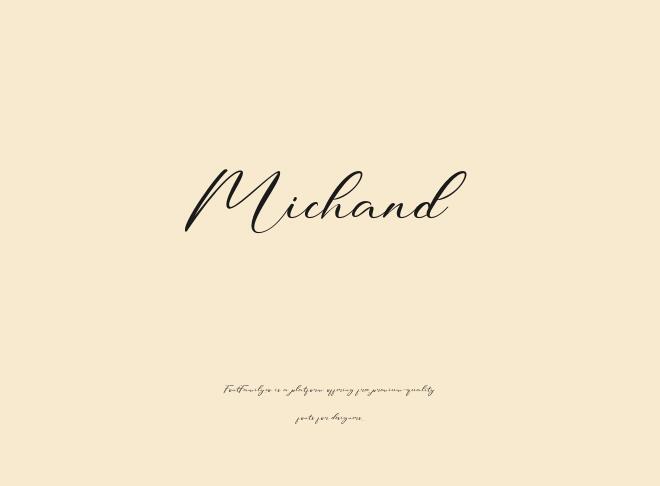
Michand Font
Michand Font is a sophisticated and modern script typeface, with a handwritten touch that adds a layer of elegance to any design. This versatile font, designed by Michand Foundry, is perfect for a broad range of applications - from wedding invitations and business cards to social media graphics and website design. Its delicate balance of modern and classic elements makes it comparable to popular fonts like 'Great Vibes' and 'Allura', yet its unique flair sets it apart. With its flowing lines and organic shapes, Michand Font is sure to captivate your audience and leave a lasting impression. Whether you're a graphic designer, a small business owner, or just someone looking for a stylish font to spruce up your project, Michand Font is a fantastic choice that won't disappoint.